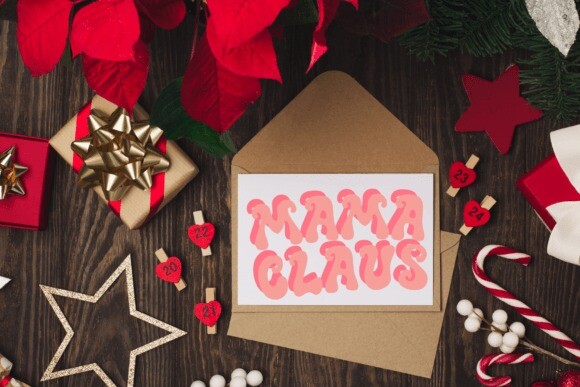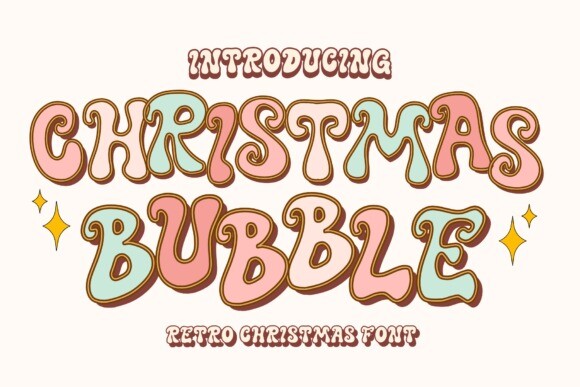
Christmas Bubble Font
Christmas Bubble Font is retro Christmas font duo. It embodies playfulness and authenticity and is the perfect choice for all your favorite projects such as blog posts, logos, branding, ads, invitations, greeting cards, planners, photo albums, decorations, and more. Add it to any of your designs, and enjoy the results!